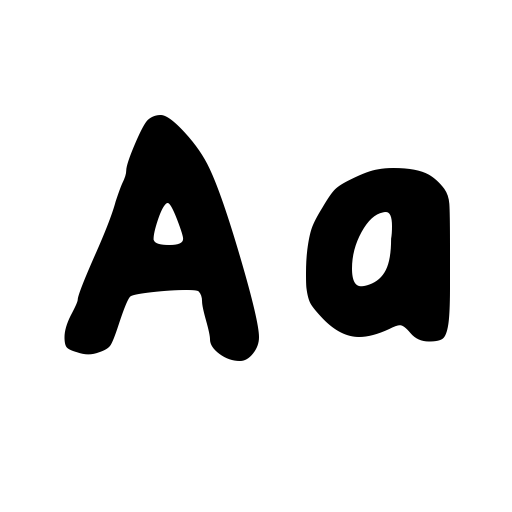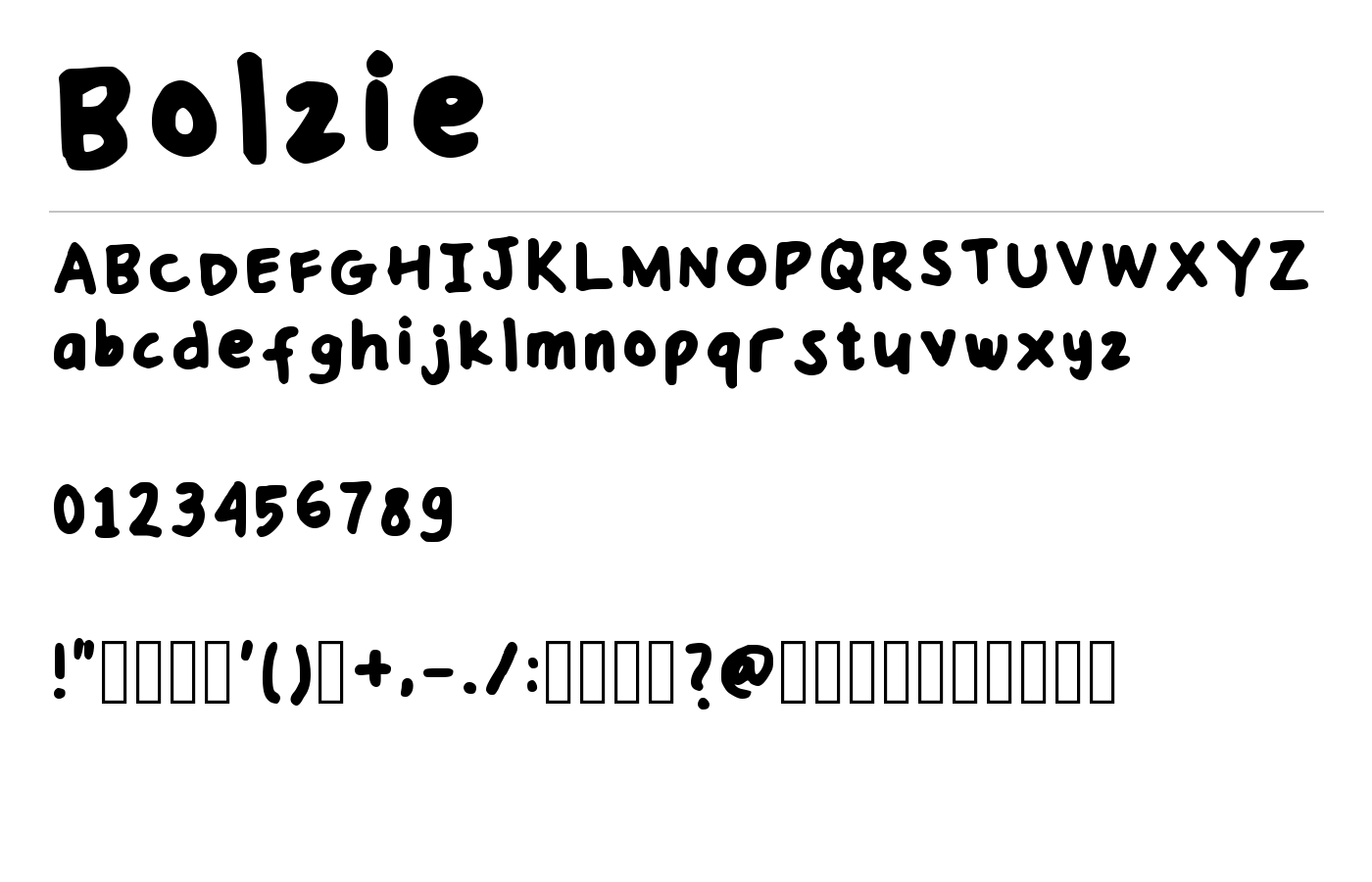
Bolzie is a playful, hand-drawn sans serif font with a bold and rounded style that feels casual and friendly. Its uneven shapes and soft edges give it a whimsical, approachable character, making it ideal for children’s products, creative projects, or informal branding. This font works best in logos, packaging, and headlines where a fun, inviting tone is desired.
Bolzie Font
About Bolzie Font